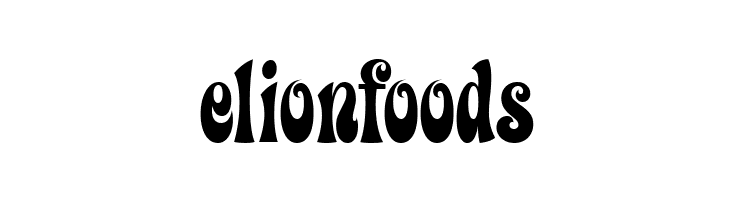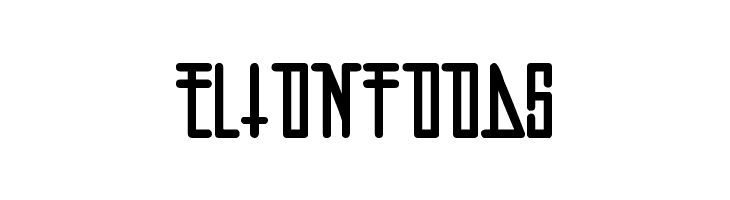
A bold, distressed font with a grunge texture and splattered ink effect.
A bold, geometric font with angular and linear elements, offering a modern and structured appearance.
A decorative Art Deco-inspired font with intricate patterns and motifs.
A bold, gothic-inspired font with sharp, intricate details.
A decorative font inspired by African art, featuring bold and intricate symbols.
A pictorial, cave-art inspired decorative font with hand-drawn glyphs.
A decorative pictogram font featuring artifact and tribal-inspired symbols.
A decorative and modern typeface with playful uppercase and straightforward lowercase letters.
A decorative symbol font with artifact and tribal-inspired pictograms.
A decorative font featuring artistic, tribal-inspired illustrations within circular shapes.
An elegant and artistic script font with flowing cursive letters.
An elegant, flowing script font with intricate loops and swashes.
An elegant, flowing script font with elongated, sweeping strokes.
A decorative font with intricate, artistic designs on each character.
A bold, dynamic script font with flowing strokes and a lively appearance.
A dynamic and elegant script font with fluid, sweeping letterforms.
A bold, decorative font with sharp, angular edges and high contrast strokes.
An elegant, Art Deco-inspired decorative font with ornate uppercase and streamlined lowercase letters.
A dynamic and flowing script font with elegant, fluid letterforms.
A bold, decorative font with playful curves and high contrast.
The image contains artistic illustrations, not a valid font.
A classic serif font with elegant, sharp serifs and slight stroke contrast.
A modern, geometric font with rounded edges and consistent stroke width.
A modern, geometric font with clean lines and rounded characters.
A whimsical collection of artistic symbols in circular frames, perfect for creative projects.
A collection of artistic illustrations and sketches, not a traditional font.
A playful, hand-drawn style font with bold, irregular strokes.
Abstract, face-themed decorative font with sketchy, artistic elements.
A dingbat font of art supply and stationery icons.
A bold, handwritten font with a playful and artistic style.
A dynamic, brush-style font with a hand-drawn, artistic flair.
A whimsical collection of artistic illustrations representing creative activities.
A collection of artistic vector illustrations, not a traditional font.
An artistic, illustrative display font with unique drawings for each character.
An elegant, flowing script font with a cursive, handwritten style.